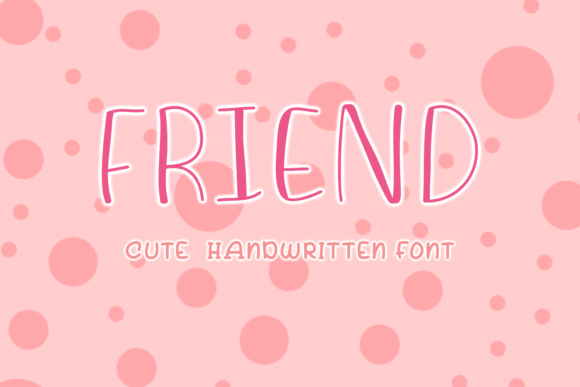
Step into the world of Friend Font, a whimsical handwritten creation by Aommy Design. This captivating script font oozes charm and spontaneity, effortlessly adding a touch of joy and modernity to your designs. With its playful and carefree strokes, Friend Font is the perfect choice for those seeking a font that exudes individuality and creativity.
Unleash your inner artist and let your words dance across the page with Friend Font. Its expressive and dynamic style mimics the beauty of handwritten letters, creating a connection between you and your audience. Whether you're crafting invitations, designing social media posts, or creating logos, Friend Font will effortlessly elevate your designs, making them stand out from the crowd.
Immerse yourself in the vibrant world of Friend Font and discover a world of endless possibilities. Its playful curves and whimsical charm will inject life into your projects, captivating your audience and leaving a lasting impression. Embrace the joy of Friend Font and let your creativity soar.